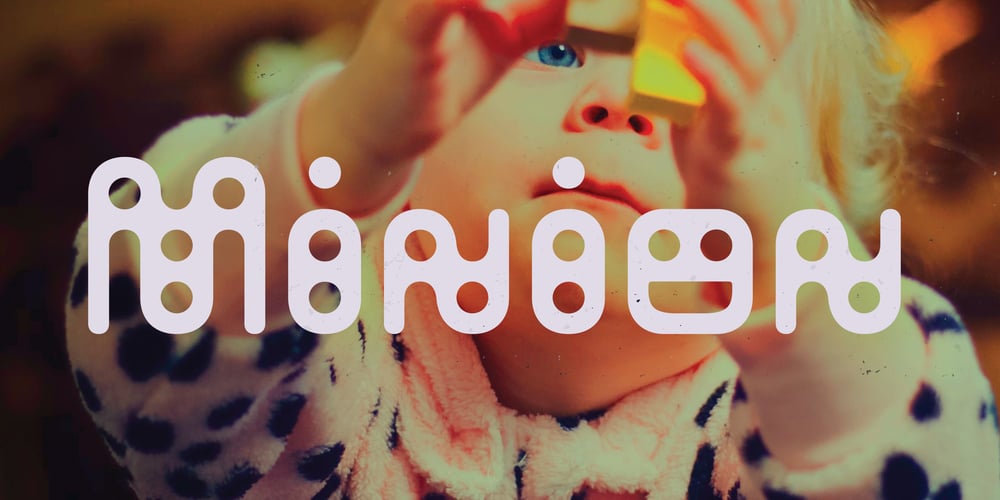
ND Minion Font Family was designed by Wolf Boese and published by NeueDeutsche. ND Minion contains 1 styles and family package options. A whimsical and playful font that harks back to the charm of childhood toys and creative imagination. Inspired by classic peg and construction toys, this font brings a delightful twist to typography. It’s as if each letter has been carefully sculpted from colorful pegs, inviting you to assemble words like a puzzle, creating your own visual narrative.